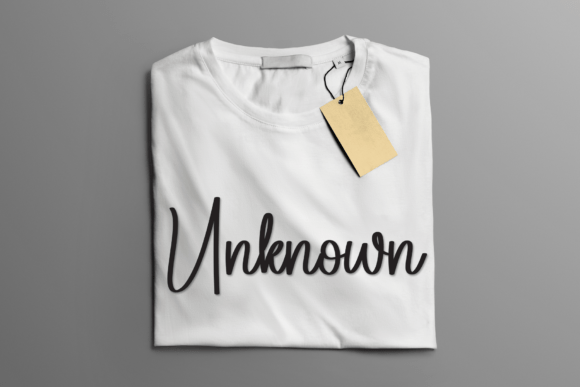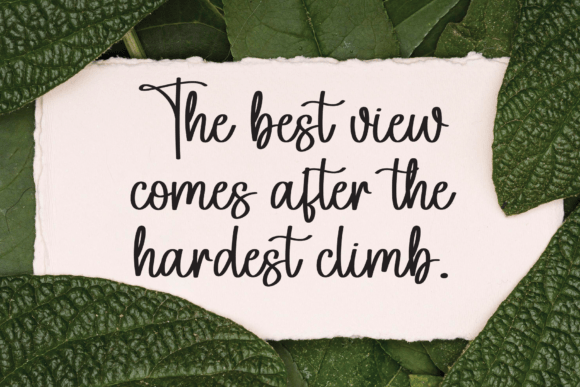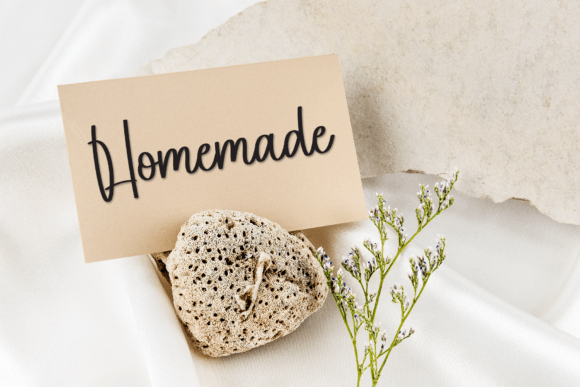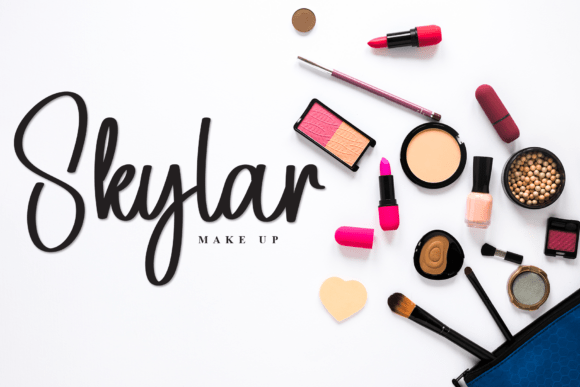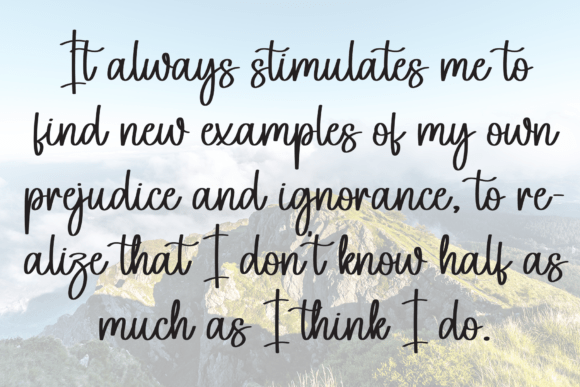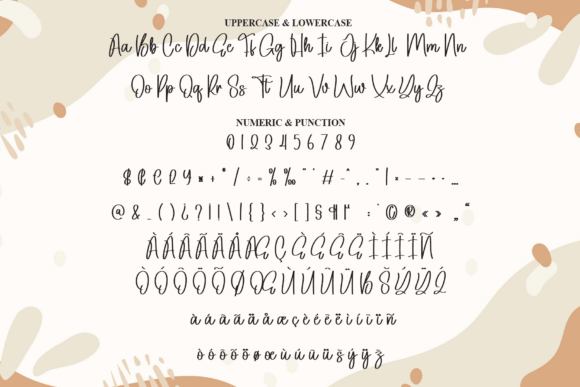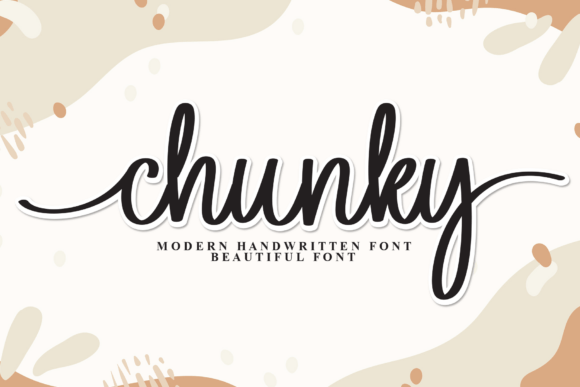
Introducing Chunky: The Modern Handwritten Font for Cozy Visual Layouts
Are you looking for a font that can add a touch of warmth and personality to your visual layouts? Look no further than Chunky, a beautifully modern handwritten font that’s perfect for designers and crafters who want to create a cozy and relaxed charm. In this article, we’ll explore the features and benefits of Chunky, and show you how it can elevate your branding, packaging, and social media graphics.
A Modern Handwritten Font with a Crisp Edge
Chunky is a unique font that combines the warmth of handwritten script with the clarity of a modern sans-serif font. Its crisp outer drop contour cuts sharply off organic background textures and abstract earth-toned patterns, ensuring perfect scannability as a bold standalone centerpiece. This makes it perfect for use in a variety of applications, from lifestyle blog banners to social media quote graphics.
Perfect for Friendly Branding
Chunky is an outstanding shortcut to friendly branding, functioning as a top-tier creative asset for modern lifestyle blog banners, cozy boutique logos, organic food and product packaging, custom merchandise slogans, and inspirational social media quote graphics. Its bold and playful design makes it perfect for brands that want to convey a sense of approachability and warmth. Whether you’re a small business owner or a social media influencer, Chunky can help you create a consistent and recognizable brand identity.
Key Features of Chunky
- Modern handwritten design: Chunky features a beautifully modern handwritten design that’s perfect for creating a cozy and relaxed charm.
- Crisp outer drop contour: The font’s crisp outer drop contour cuts sharply off organic background textures and abstract earth-toned patterns, ensuring perfect scannability.
- Bold and playful design: Chunky’s bold and playful design makes it perfect for use in a variety of applications, from lifestyle blog banners to social media quote graphics.
- Perfect for friendly branding: Chunky is an outstanding shortcut to friendly branding, functioning as a top-tier creative asset for modern lifestyle blog banners, cozy boutique logos, and more.
Use Cases for Chunky
Chunky is a versatile font that can be used in a variety of applications, including:
- Lifestyle blog banners: Use Chunky to create eye-catching banners for your lifestyle blog, adding a touch of warmth and personality to your design.
- Cozy boutique logos: Create a consistent brand identity for your cozy boutique with Chunky, perfect for use on signage, packaging, and marketing materials.
- Organic food and product packaging: Use Chunky to add a touch of warmth and approachability to your organic food and product packaging.
- Custom merchandise slogans: Create custom merchandise slogans with Chunky, perfect for use on t-shirts, mugs, and other promotional items.
- Inspirational social media quote graphics: Use Chunky to create inspirational social media quote graphics that are sure to engage and motivate your audience.
Tips for Using Chunky
Here are a few tips for using Chunky in your designs:
- Use it as a bold centerpiece: Use Chunky as a bold centerpiece in your design, pairing it with simpler fonts and textures to create a visually appealing contrast.
- Experiment with colors and textures: Experiment with different colors and textures to find the perfect combination that complements Chunky’s bold and playful design.
- Keep it simple: Don’t overcomplicate your design – keep it simple and clean, using Chunky to add a touch of warmth and personality.
In conclusion, Chunky is a beautifully modern handwritten font that’s perfect for designers and crafters who want to create a cozy and relaxed charm. With its crisp outer drop contour, bold and playful design, and versatility in use cases, Chunky is an outstanding shortcut to friendly branding. Whether you’re a small business owner or a social media influencer, Chunky can help you create a consistent and recognizable brand identity that engages and motivates your audience.